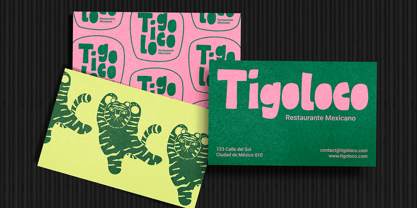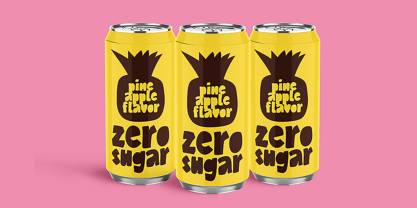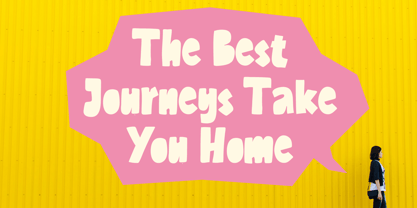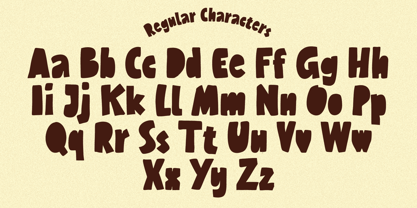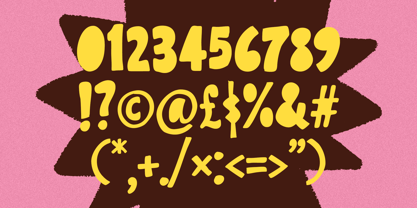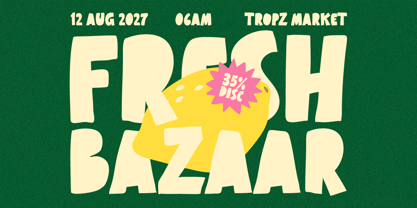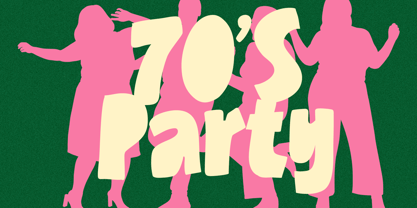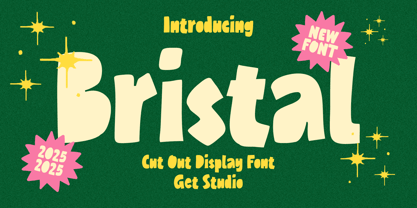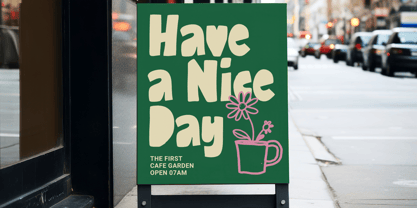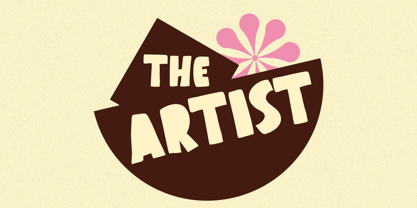
Bristal
by Get Studio
The Bristal Font Family was designed by Hermansyah and published by Get Studio. Bristal contains 2 styles and family package options. More about this family
Bristal is a playful cut-out display font with a bold, quirky personality. Inspired by handcrafted paper textures and retro charm, Bristal brings a fun, eye-catching vibe perfect for posters, children’s books, branding, and creative projects.
Designed by Get Studio, this font adds a splash of whimsy and warmth to any layout!